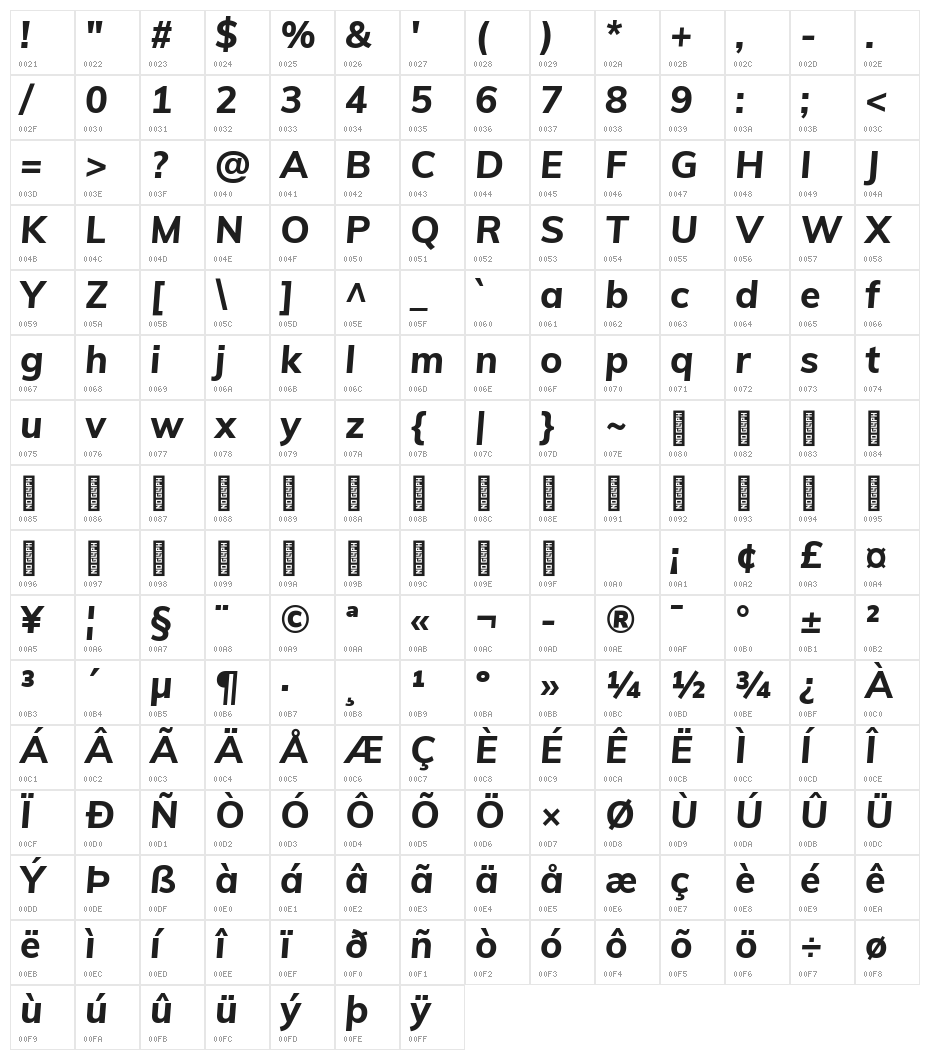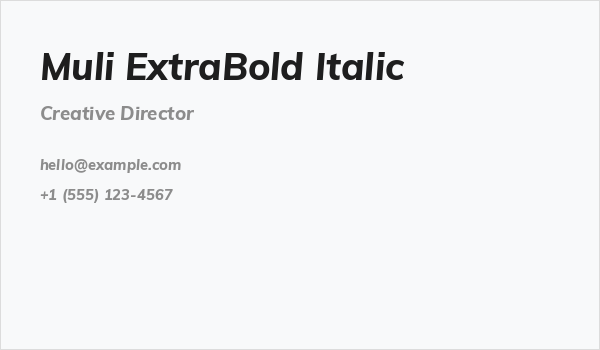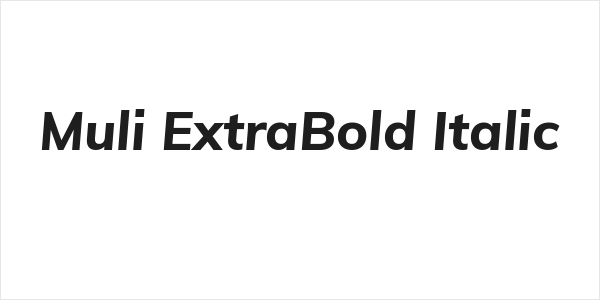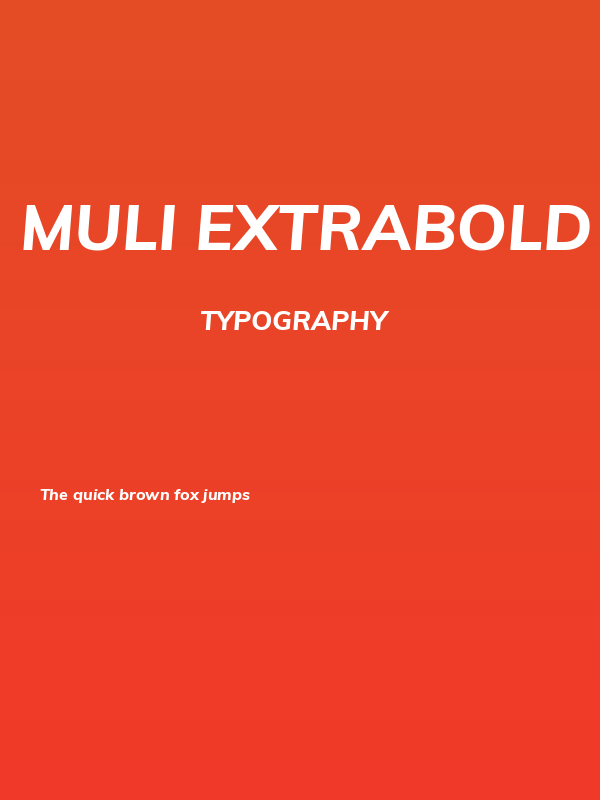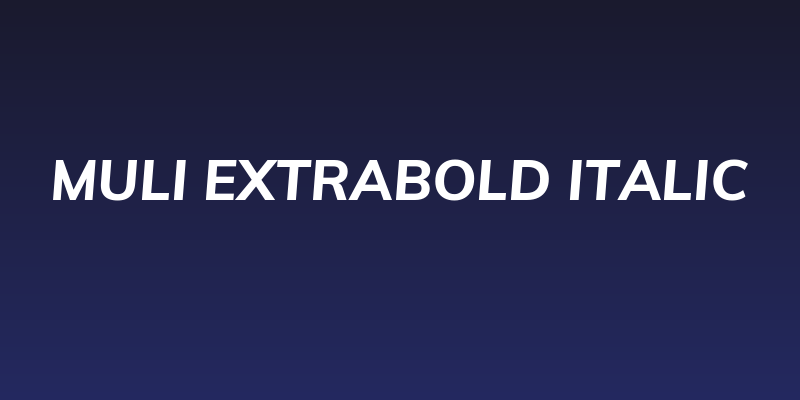
Muli ExtraBold Italic Font
Muli ExtraBold Italic Description
This typeface features a modern sans-serif design with a strong emphasis on clarity and readability. The characters are extra bold, providing a robust and impactful presence on the page. The italic style adds a dynamic and forward-leaning aspect, enhancing the font's versatility. The strokes are consistent in thickness, contributing to a clean and uniform appearance. The character set includes uppercase and lowercase letters, numerals, and a variety of special characters, making it suitable for diverse applications. The overall design is sleek and contemporary, ideal for making a bold statement.
Use CaseHeadlines, Logos, Branding
Proposed ProjectsIdeal for branding, advertising, headlines, and digital content where a strong visual impact is desired.